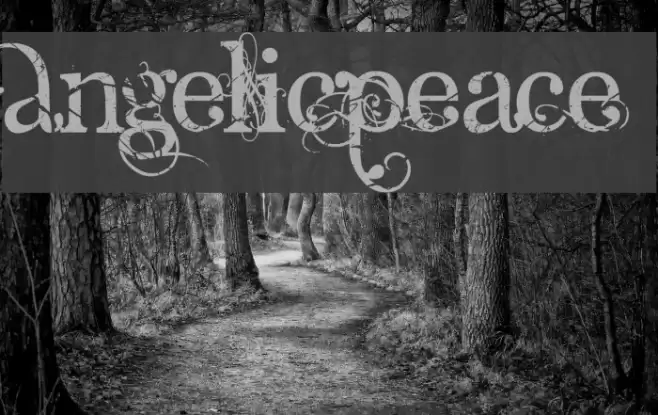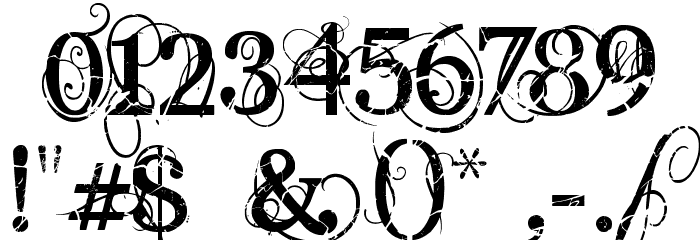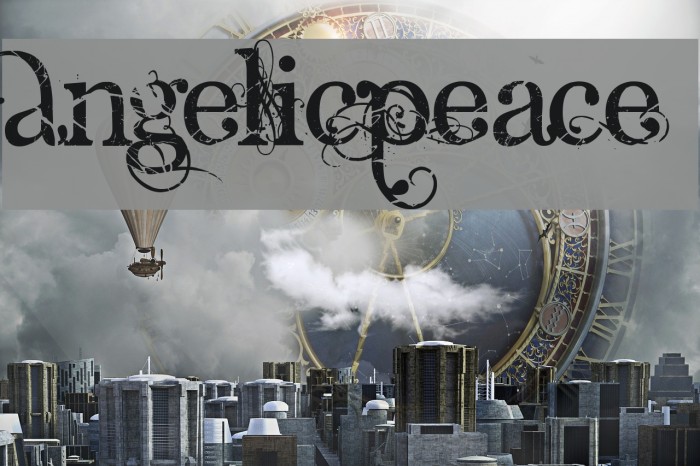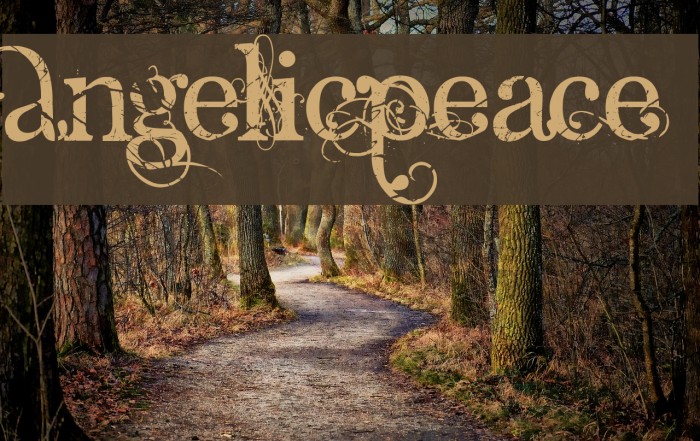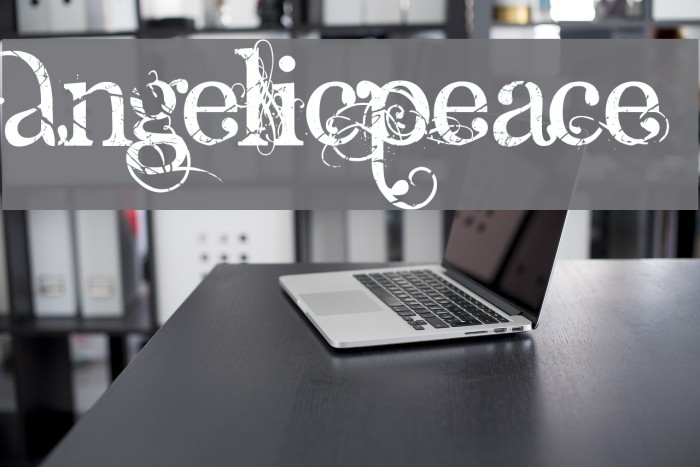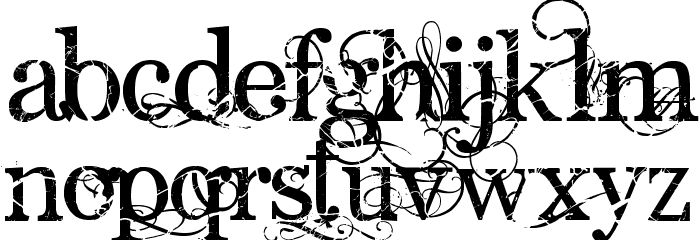
AngelicPeace Font
AngelicPeace Description
This font exudes an intricate and ornate style, characterized by elaborate swirls and flourishes that embellish each character. The uppercase and lowercase letters are adorned with decorative elements, creating a sense of elegance and sophistication. The numbers and special characters maintain this ornate theme, ensuring a cohesive appearance across all glyphs. This font is ideal for projects that require a touch of luxury and artistic flair, making it suitable for invitations, branding, and decorative purposes.
An ornate and decorative font with intricate swirls and flourishes from Uncategorized fonts.
- Proposed Projects: Ideal for wedding invitations, luxury branding, artistic posters, and decorative headings.
- Use Case: Headlines, Logos, Invitations